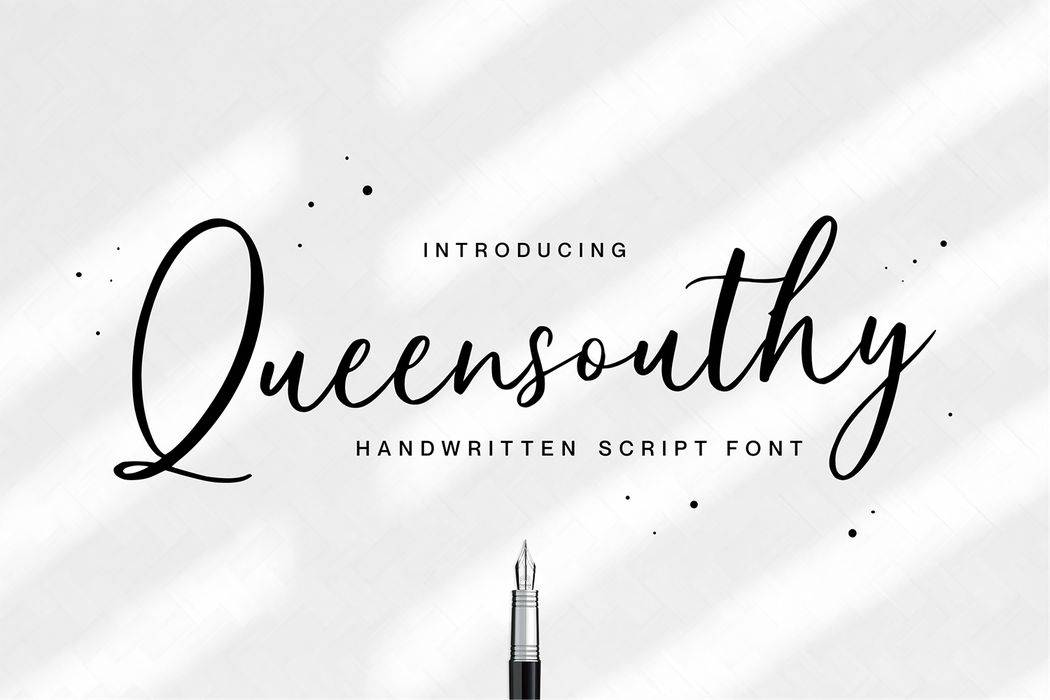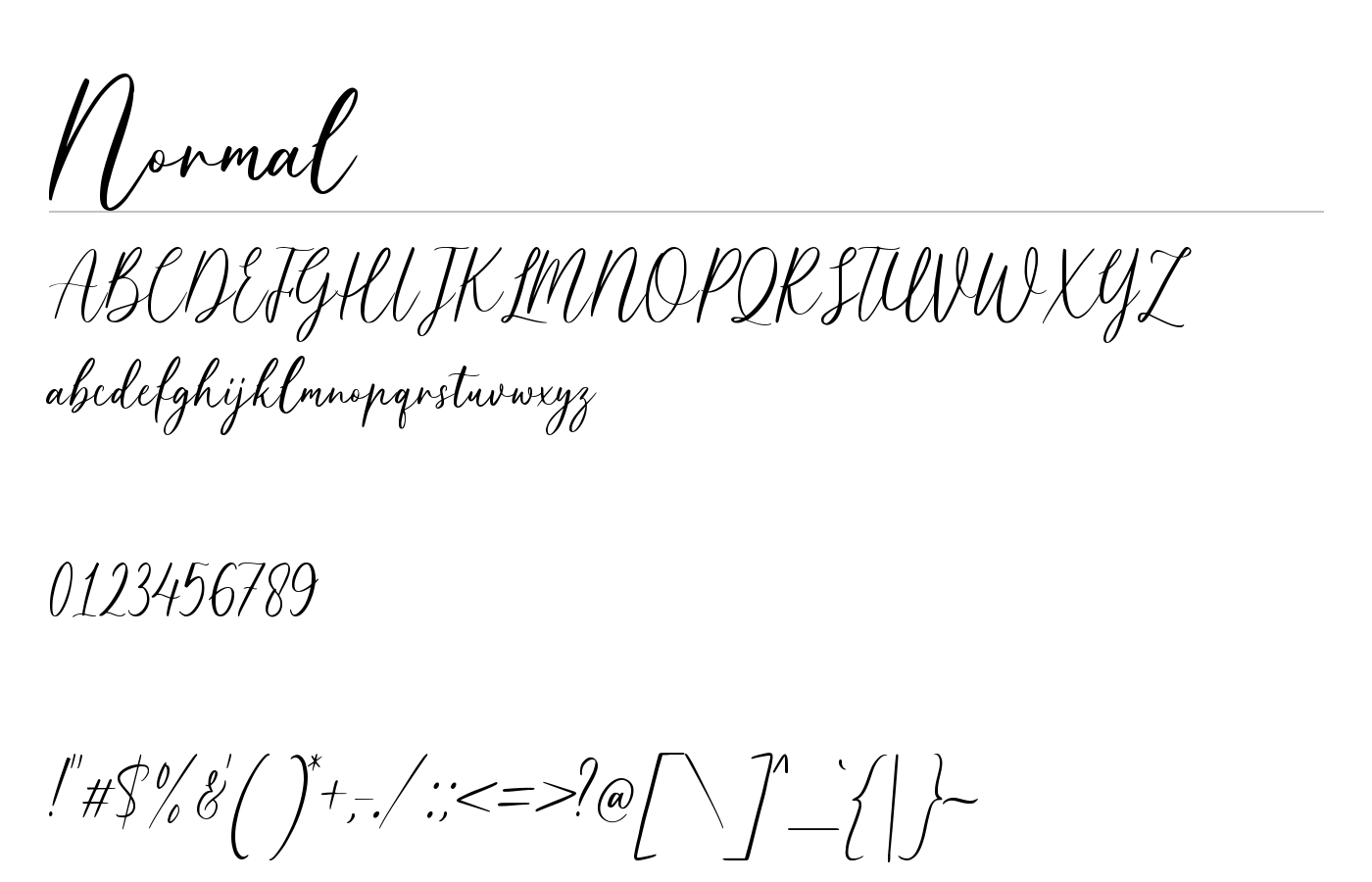
Queensouthy is a delicate, elegant script font with a handwritten feel, featuring thin, flowing strokes and slightly varied letter heights that create a natural, graceful rhythm. Its refined style and airy spacing make it perfect for invitations, branding, and creative projects where a personal yet sophisticated touch is desired. This font works especially well for fashion, wedding, and lifestyle designs that need a modern but charming aesthetic.
Queensouthy Font
About Queensouthy Font